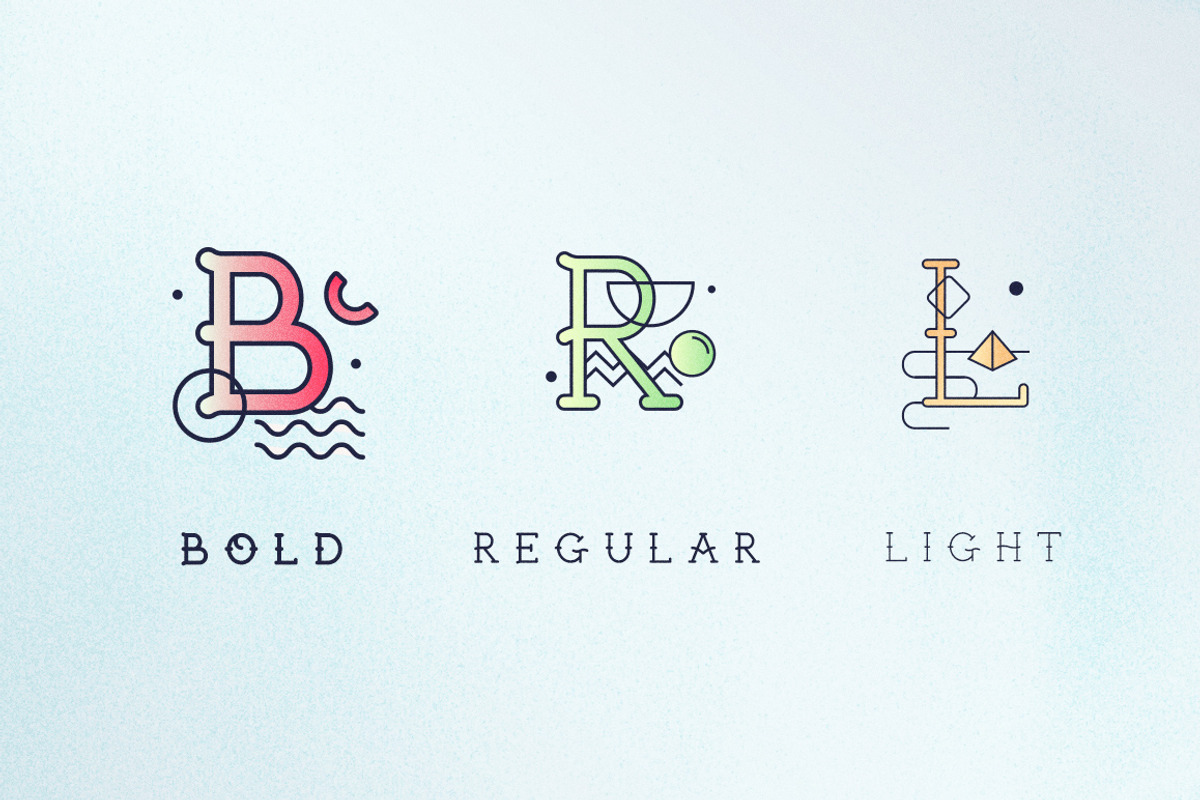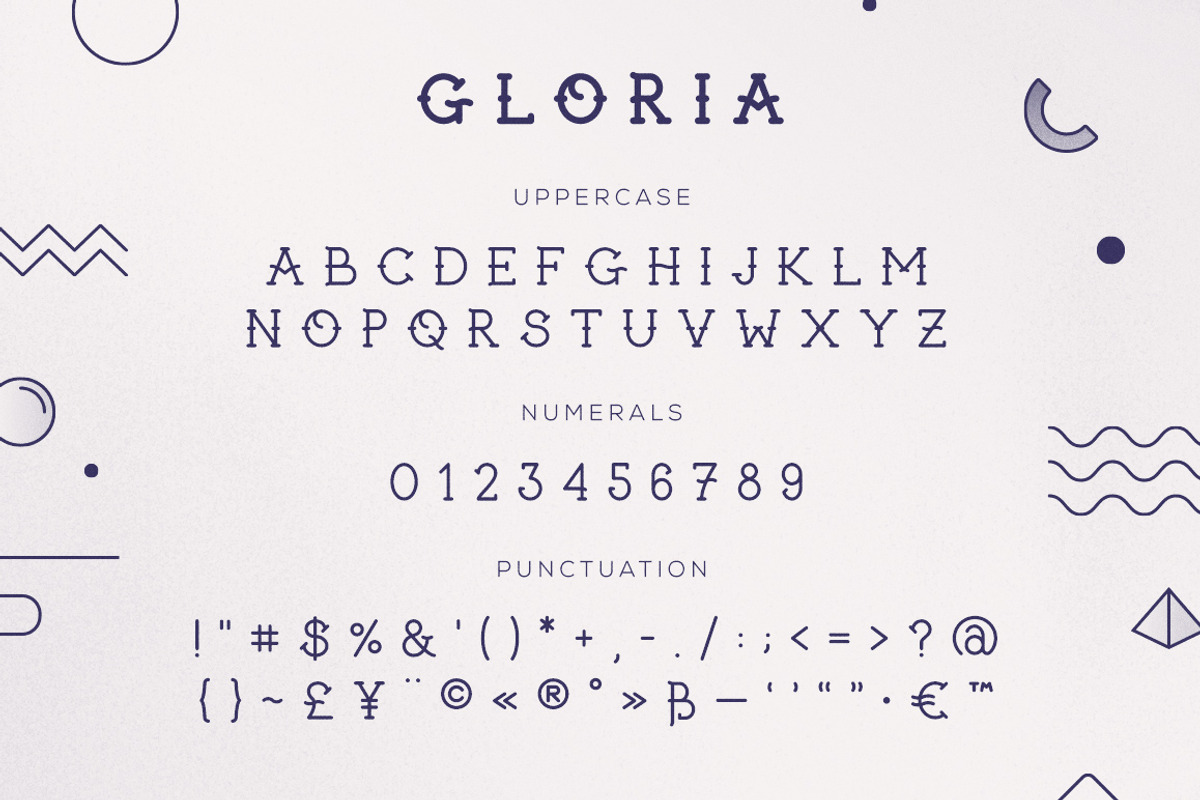
Gloria Typeface
Gloria Typeface by Nice To Must Have is a font selected for branding, posters, packaging, typography.
- She comes in 3 weights and also included as a webfont.
Why Gloria Typeface is worth a look
Gloria Typeface by Nice To Must Have fits naturally into Branding, posters, packaging, typography.